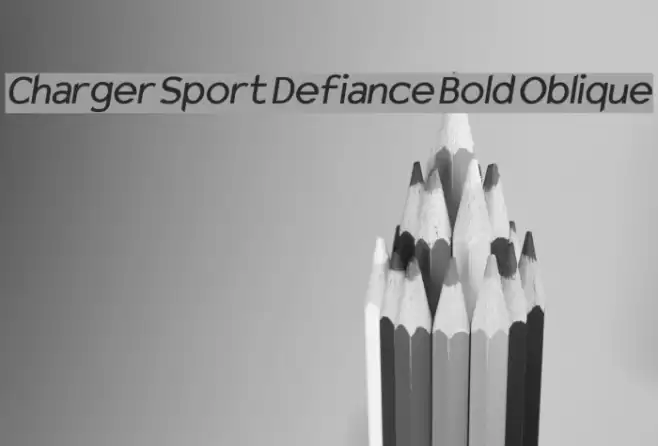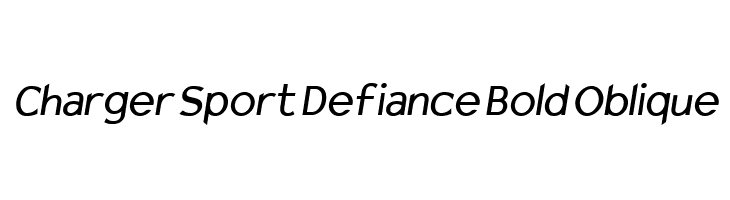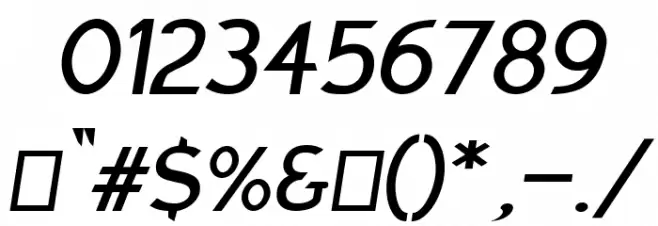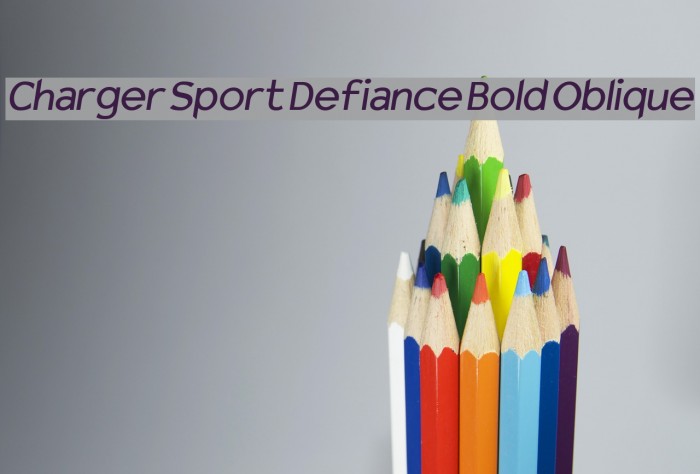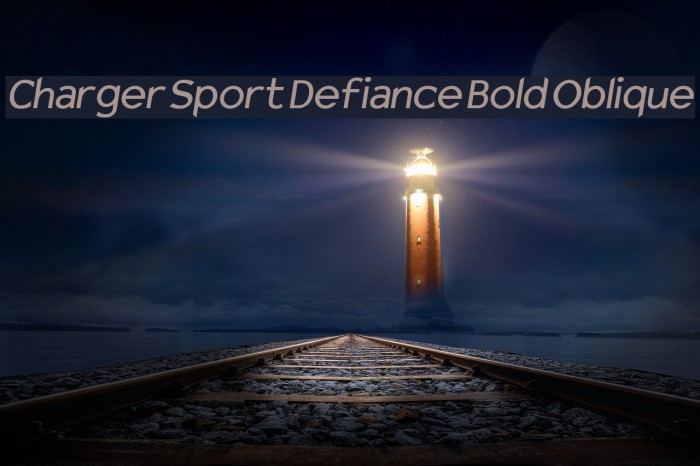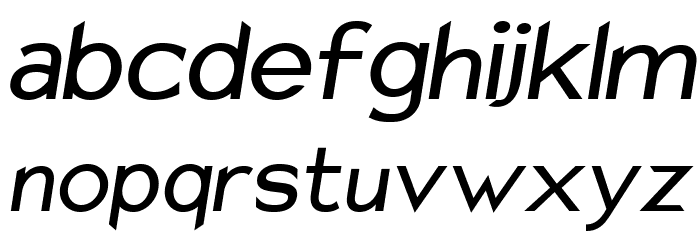
Charger Sport Defiance Bold Oblique Font
Charger Sport Defiance Bold Oblique Description
This font exhibits a dynamic and modern style with a bold and oblique design. The characters are slightly slanted, giving a sense of motion and energy. The strokes are consistent in thickness, providing a uniform appearance across all characters. The uppercase and lowercase letters maintain a clean and sleek look, while the numerals and special characters are designed to complement the overall aesthetic. The font's contemporary feel makes it suitable for various design applications that require a bold statement.
A bold, oblique font with a modern and dynamic style from Uncategorized fonts.
- Proposed Projects: Ideal for sports branding, dynamic posters, modern advertising, and energetic logo designs.